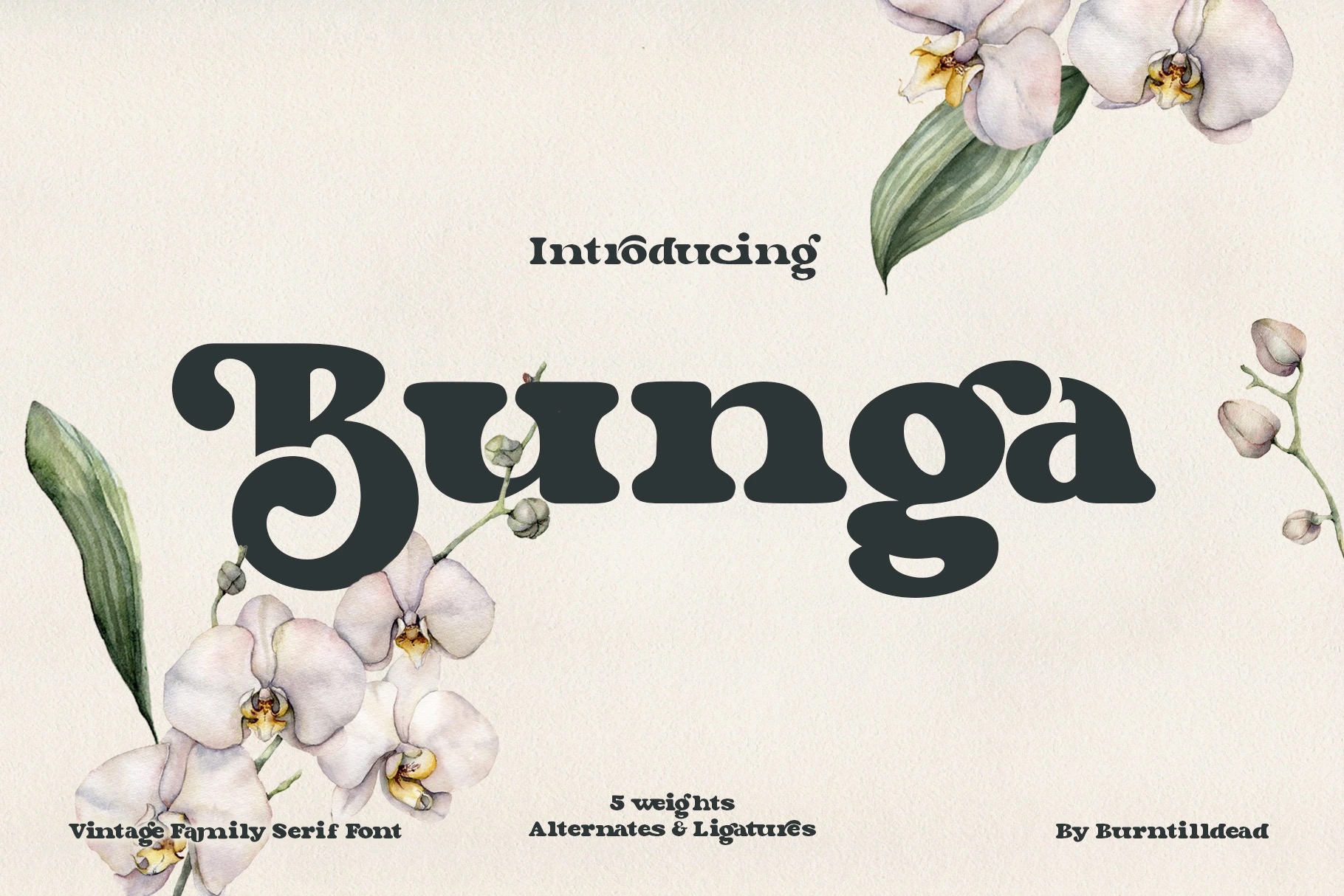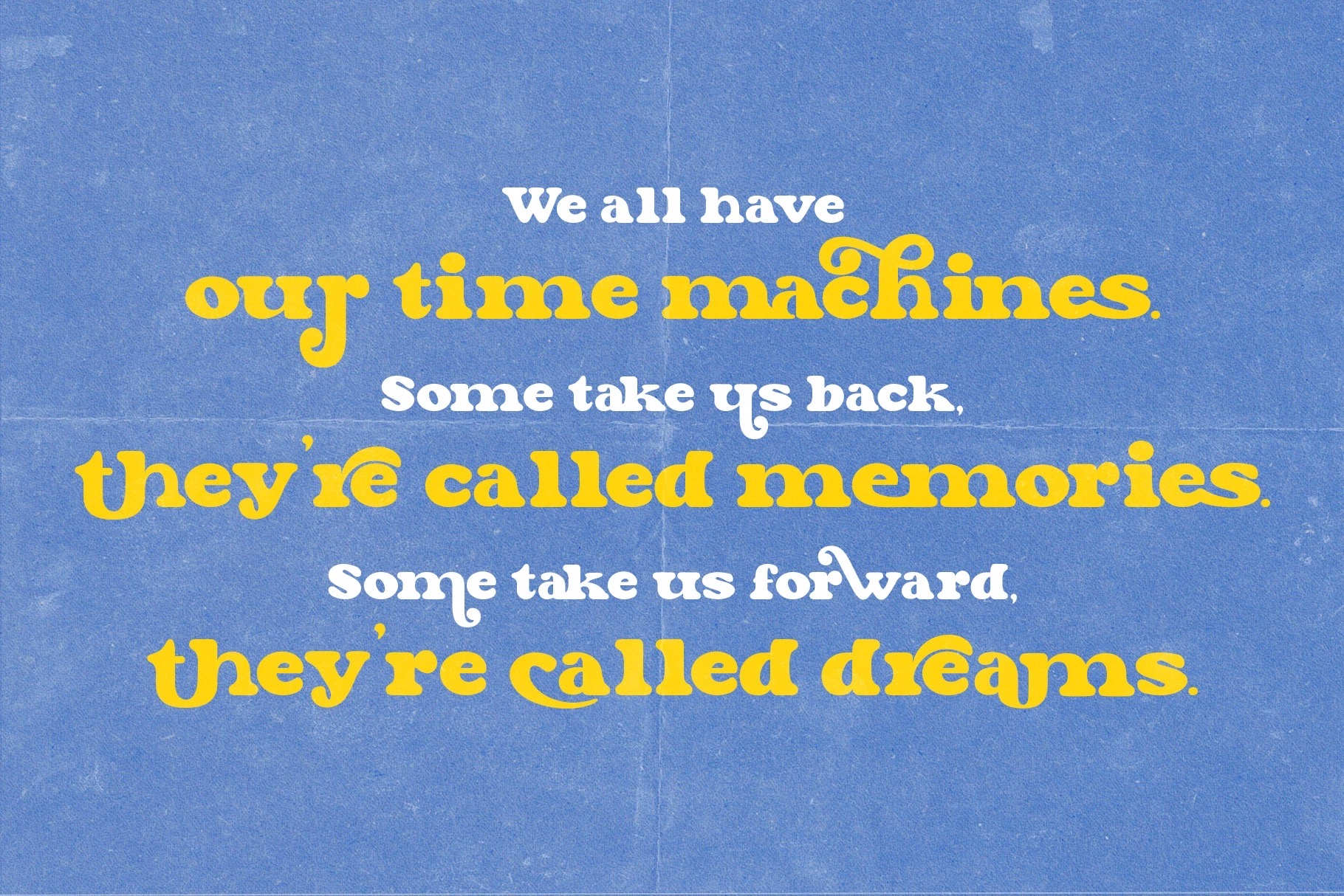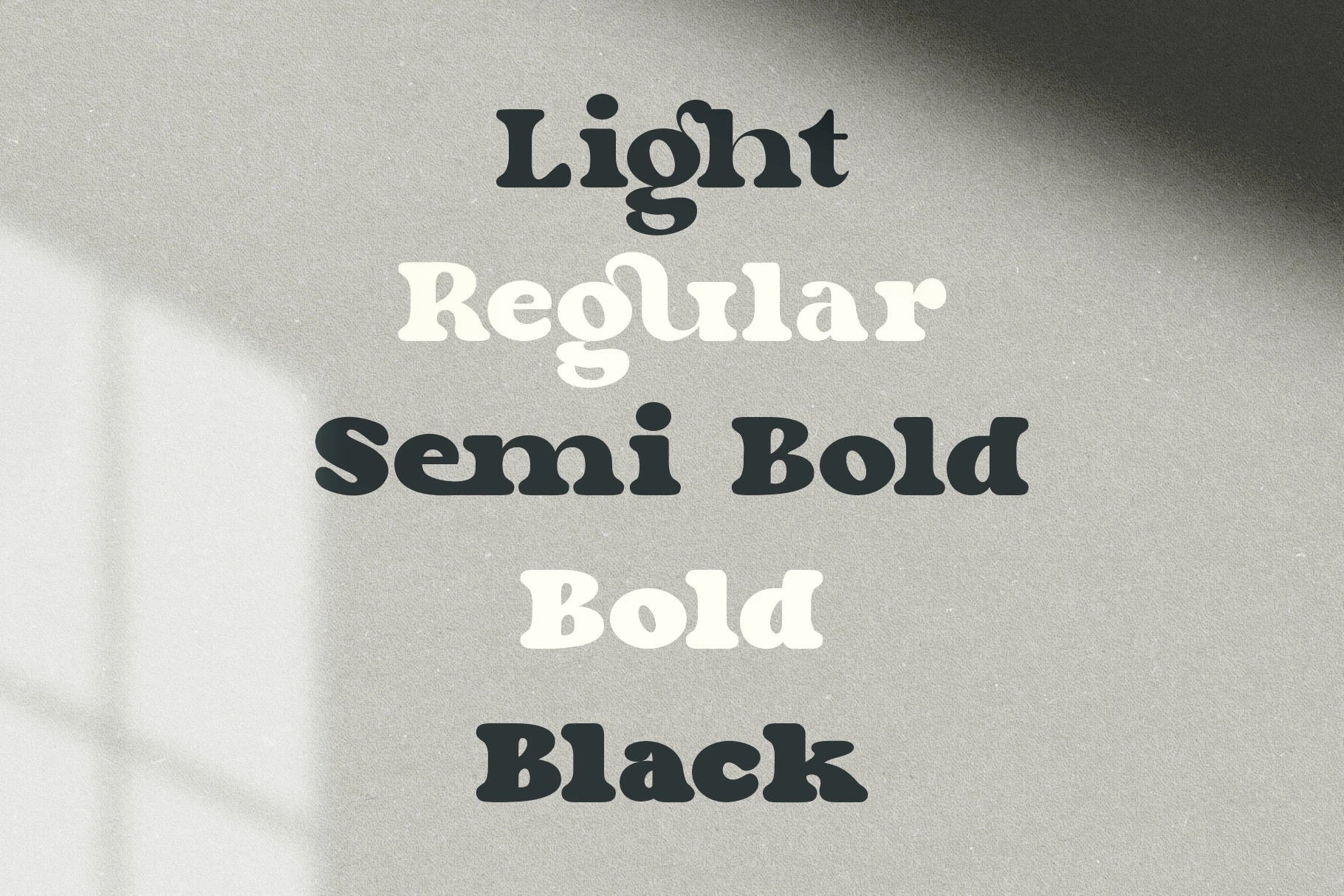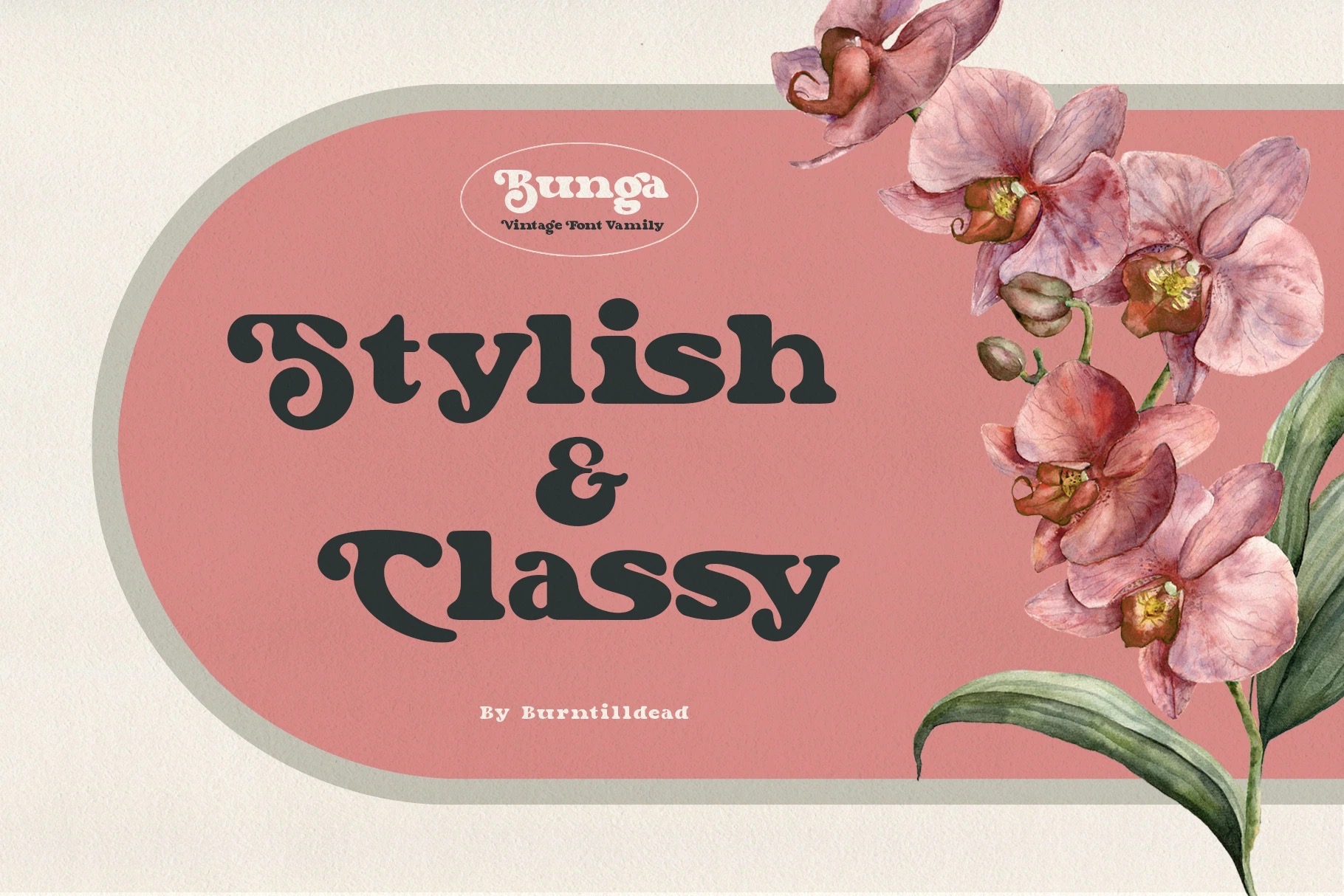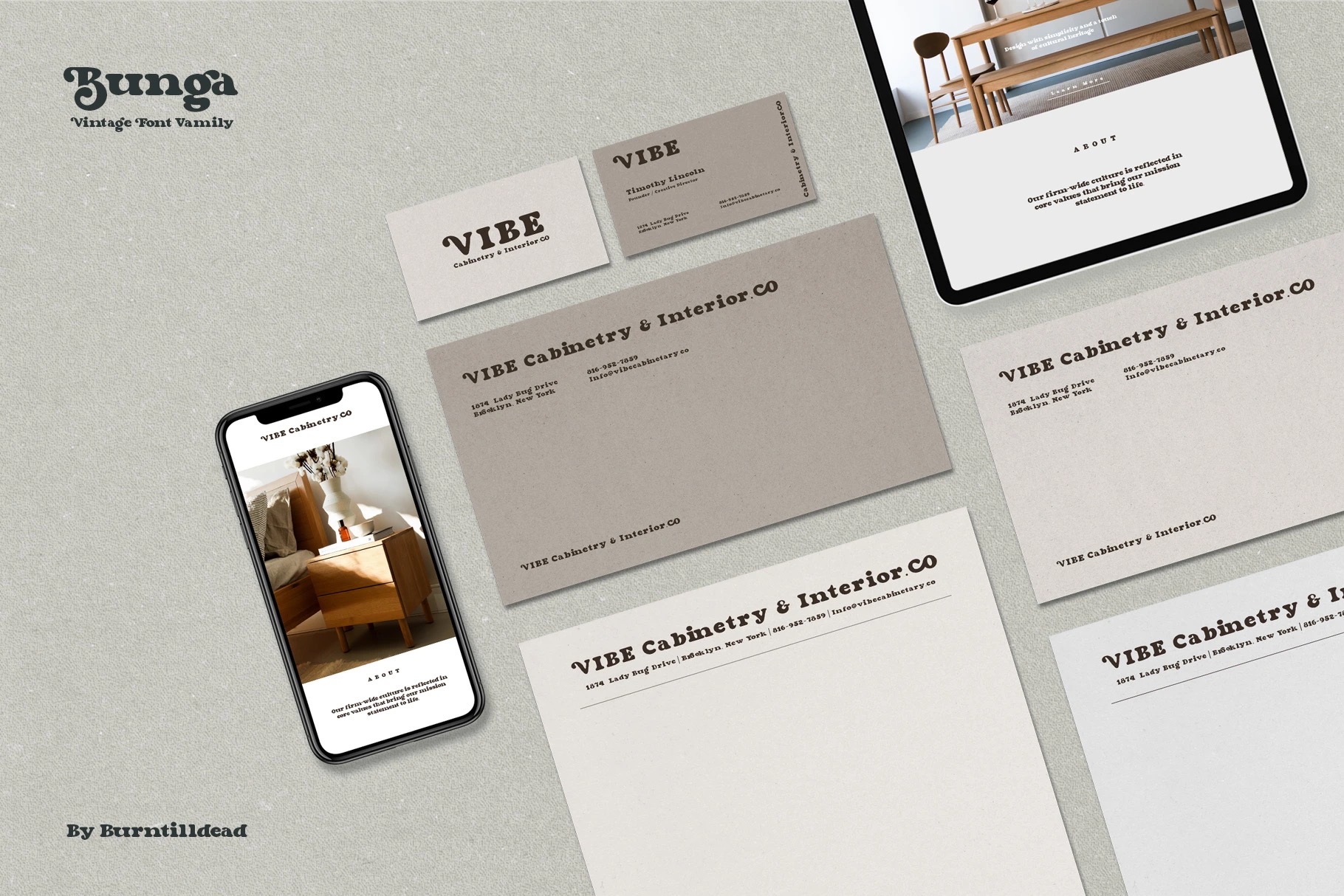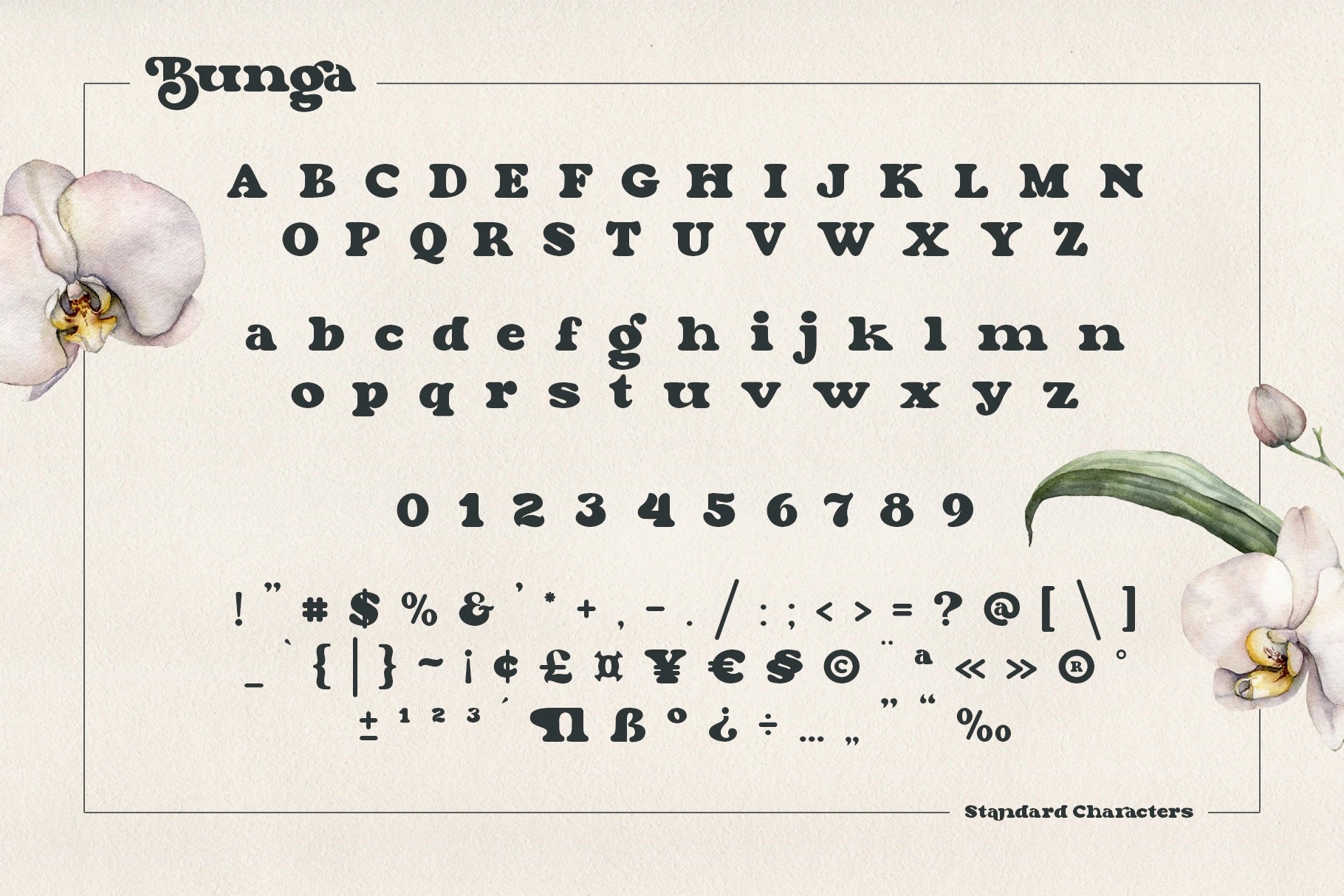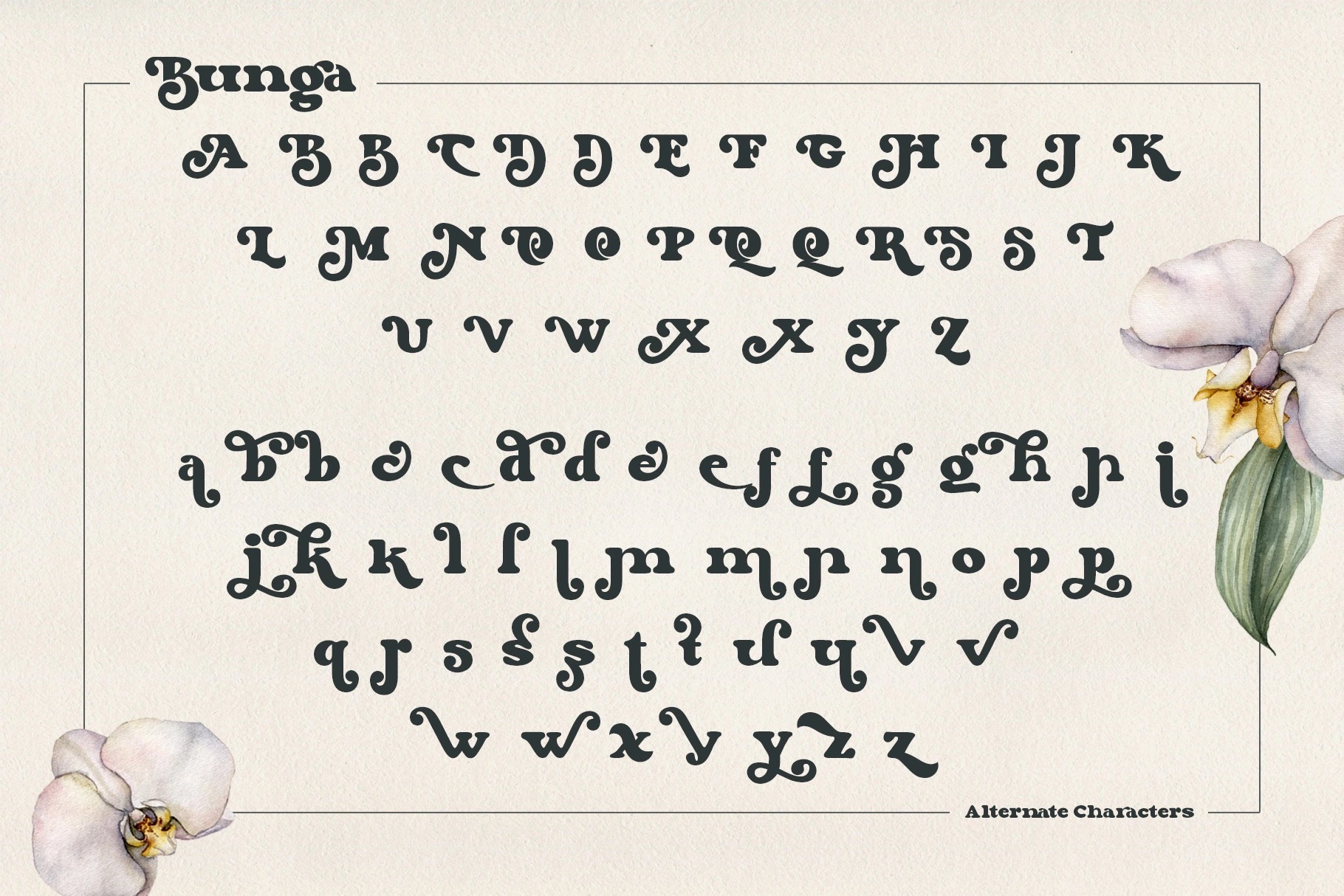
Say Hi to “Bunga”, inspired by the 70 – 80’s retro bold font that always used on that decade. We try to bring a beautifull time machine on the table, a great decade were you can saw many groovy and thick design. Fits perfectly into those nostalgic moodboards and vintage logos.
POWERED WITH 5 WEIGHTS – Bunga Light, Bunga Regular, Bunga Semi Bold, Bunga Bold & Bunga Black.